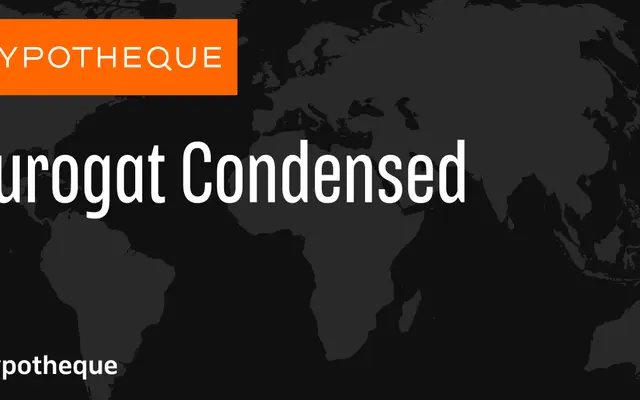
Surogat Condensed
A three-width grotesque system from Typotheque spanning eight weights with matching italics across Condensed, standard and Compressed cuts.
The family runs sixteen styles per width, covering Thin through Black with italics throughout, giving designers a wide tonal range within each of the three width variants. The Condensed and Compressed cuts are particularly suited to tightly spaced editorial and display settings where space is at a premium. Individual fonts are sold under city names, from Amsterdam through to Providence, offering granular licensing across the full system.
The condensed and compressed width variants alongside a standard width, combined with the broad weight range and upright/italic pairings, point to a workhorse grotesque sans-serif system built for demanding typographic environments.